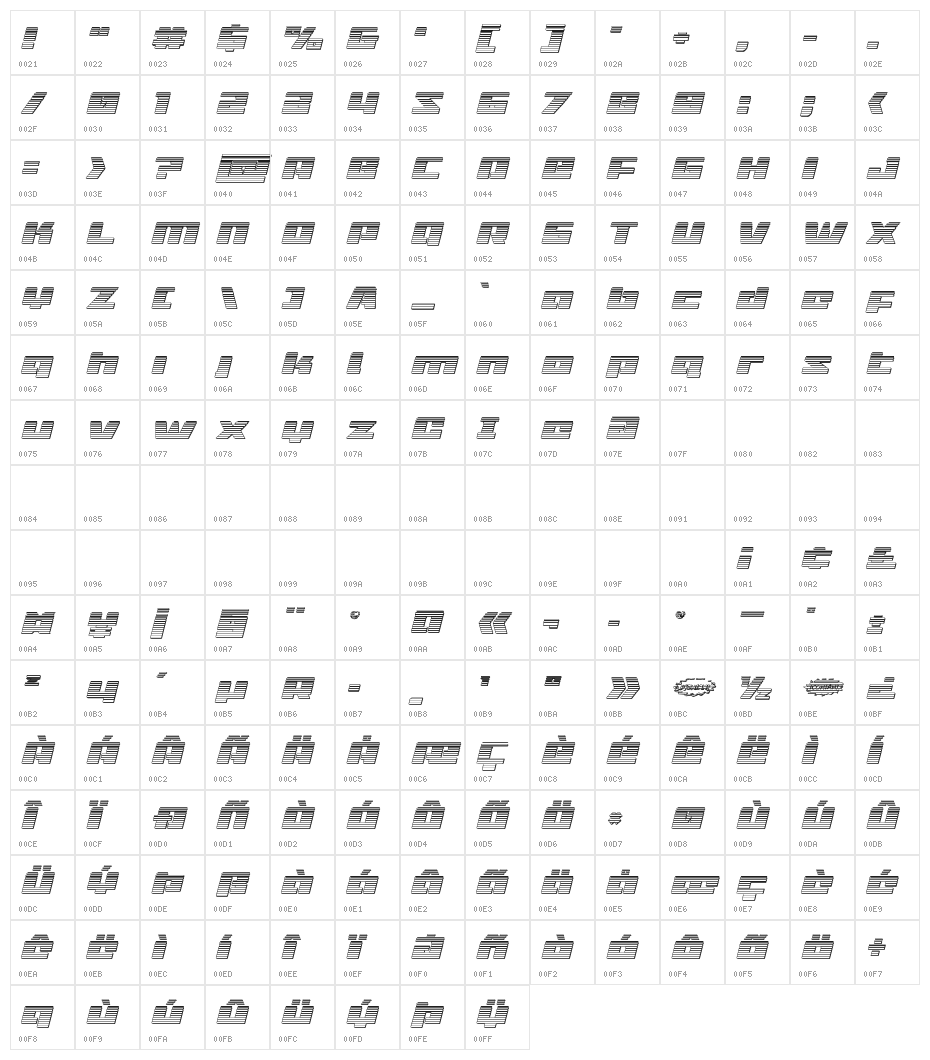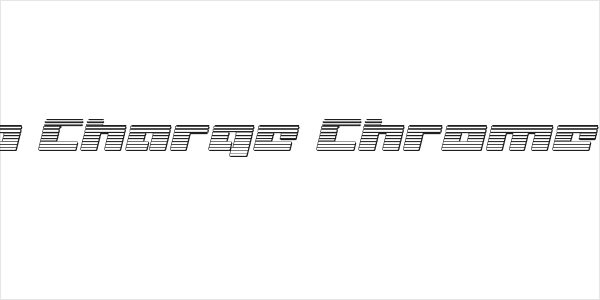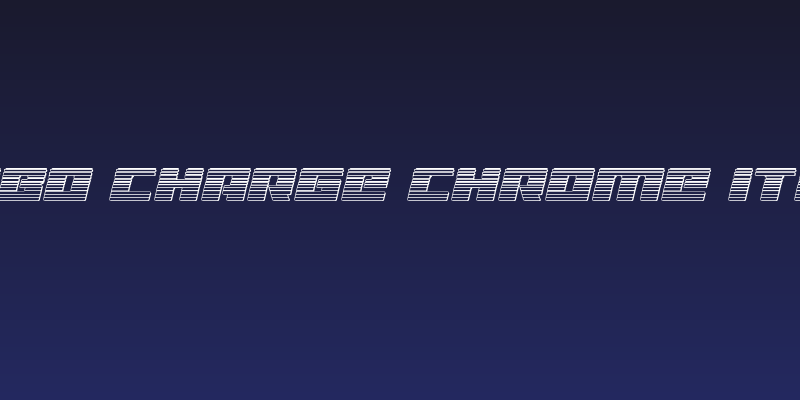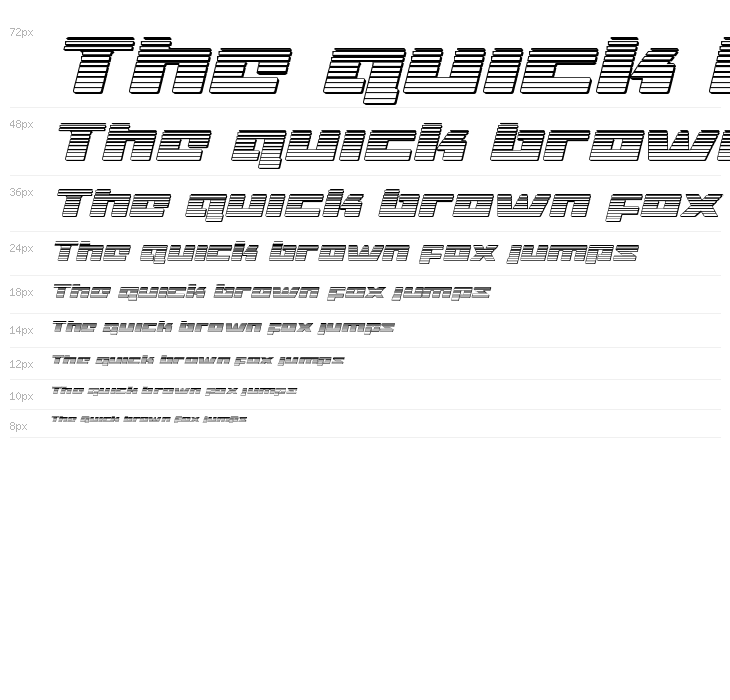
Turbo Charge Chrome Italic Font
Turbo Charge Chrome Italic Description
This font features a dynamic and futuristic design with a distinct italic slant, characterized by a series of parallel horizontal lines that create a sense of movement and speed. The geometric structure of each character is bold and angular, giving it a modern and industrial feel. The uppercase and lowercase letters maintain a consistent style, while the numerals and special characters are designed to complement the overall aesthetic. The font's unique line pattern adds depth and texture, making it stand out in any design project.
| Overall Style | Futuristic, Industrial |
| Proposed Projects | Ideal for projects that require a modern and edgy look, such as tech branding, automotive advertisements, video game titles, and futuristic posters. |